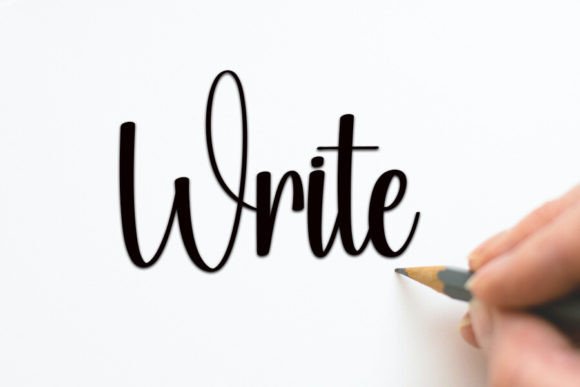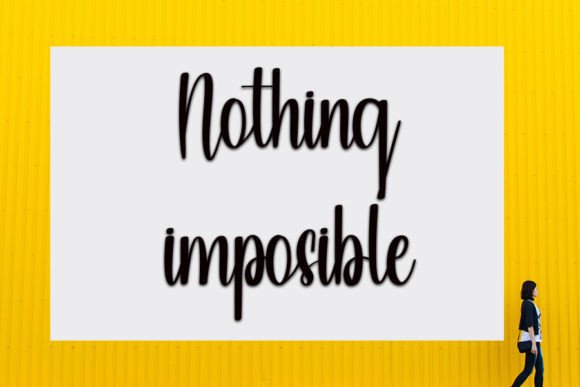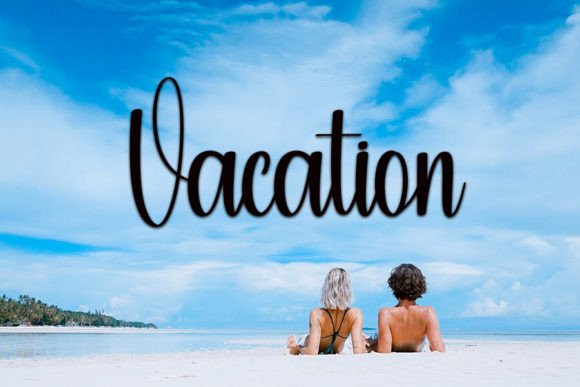
Introduction to Qualifier Font
Have you ever stared at a blank canvas, searching for the perfect design element to bring your creative project to life? The search is over, thanks to the Qualifier Font. This delightful handwritten font is the ultimate design resource for any project that demands a touch of elegance and whimsy.
With its high-quality design and versatile style, the Qualifier Font is a valuable addition to any designer’s toolkit. Whether you’re working on a DIY project, crafting a beautiful Instagram post, or creating a calligraphy script, this font will elevate your design to new heights. Its transparent background makes it easy to layer and manipulate, giving you endless possibilities to experiment with.
Key Features of Qualifier Font
- Comes in 4 different font styles, each with its unique characteristics.
Honest Review: Qualifier Font
I recently had the chance to work with Qualifier Font on a creative project, and I must say, it’s a great addition to any design resource. The font’s high quality really shines through, especially when used on a transparent background.
- What works well:
- ✨ Elegant and modern design aesthetic
- ✨ Wide range of font sizes and styles available
- ✨ Smooth, consistent typography
- Limitations:
- ⚠️ Limited font weights and styles compared to other premium fonts
- ⚠️ May not be suitable for complex, multi-line text
Overall, I’m really impressed with Qualifier Font and would definitely consider using it on future projects. While it may have some limitations, its high quality and modern design aesthetic make it a great addition to any design resource.
Tips for Getting the Most Out of Qualifier Font
For the best results, use the Qualifier Font in conjunction with a high-quality image or background. This will create a visually appealing design that is sure to grab attention. You can also experiment with different font sizes and colors to add more creativity to your project.
The Qualifier Font is a versatile design resource that can be used in a variety of creative projects, including social media graphics, presentations, posters, and more. Its high quality and transparent background make it an ideal choice for designers who want to create unique and eye-catching designs.